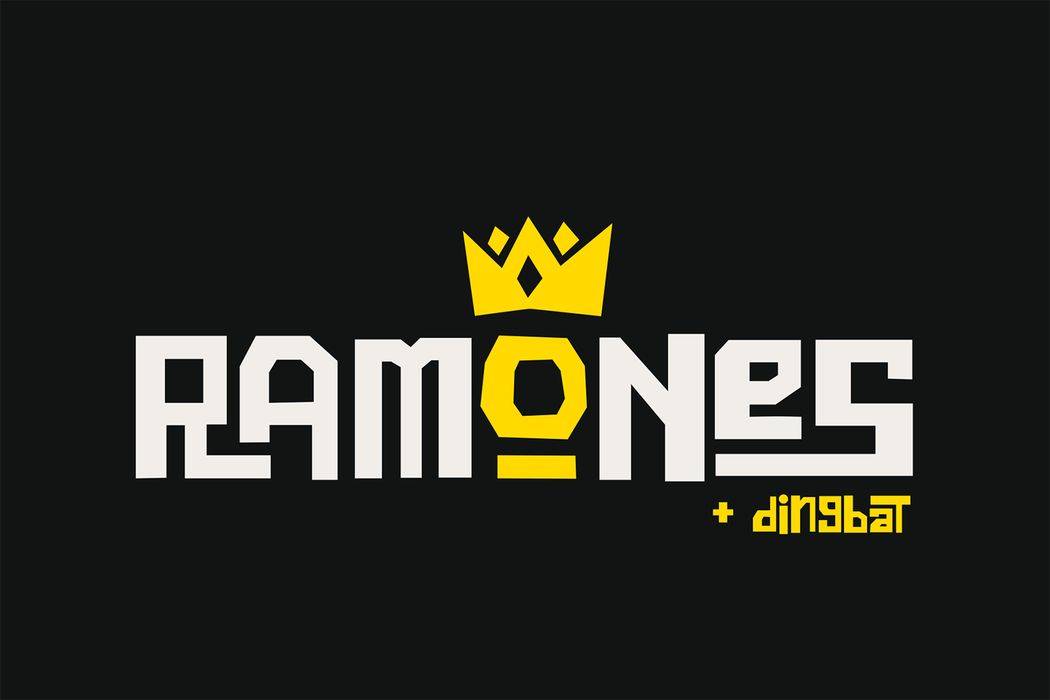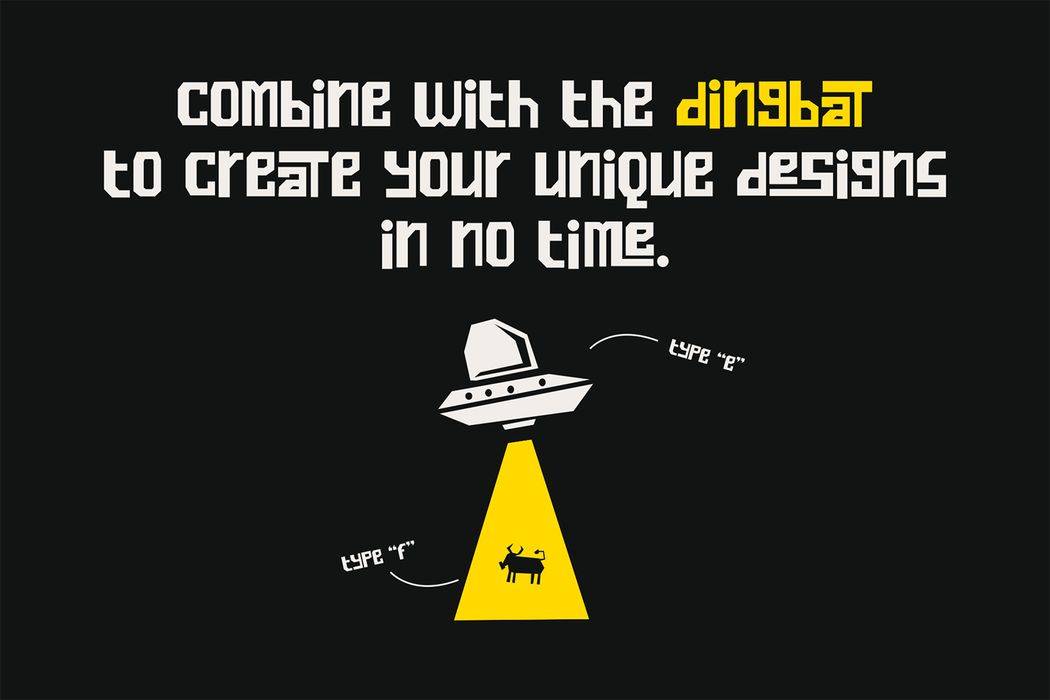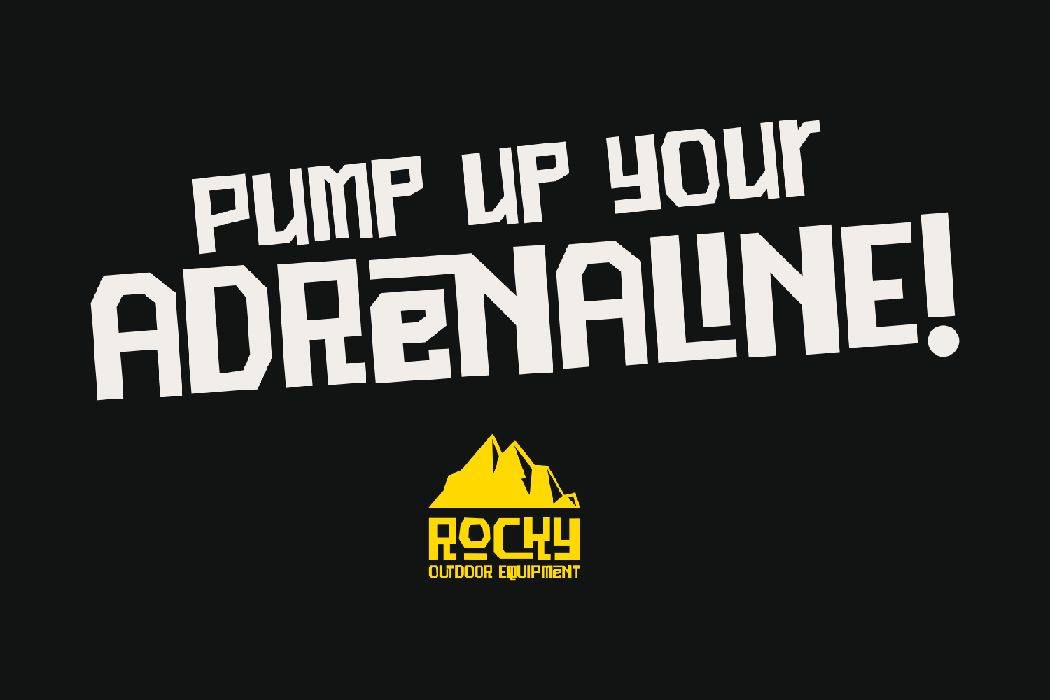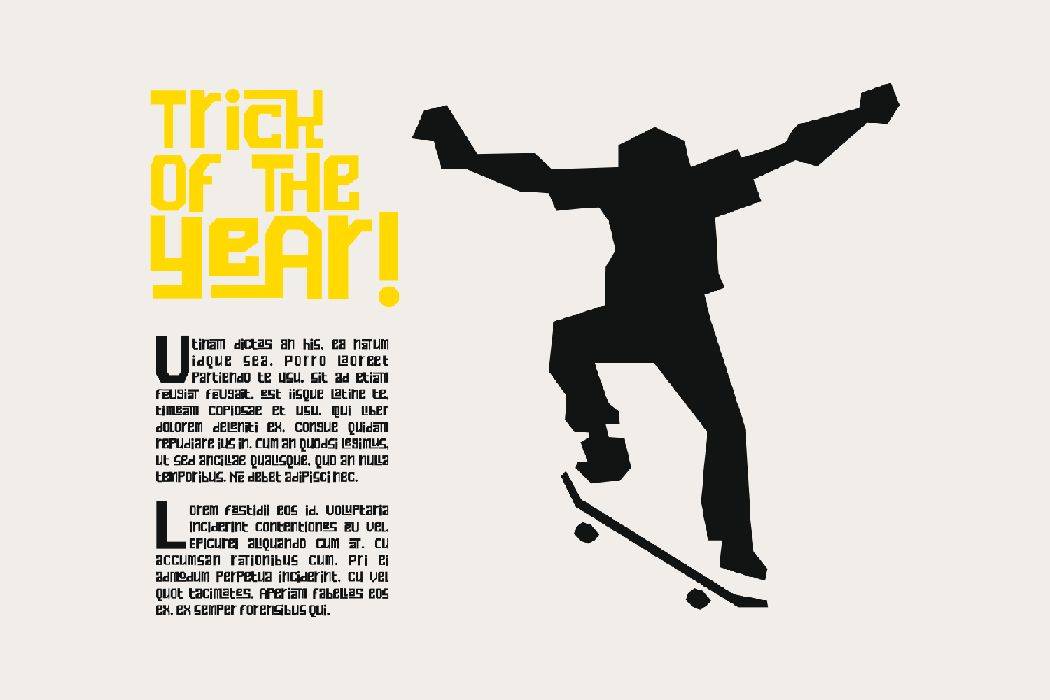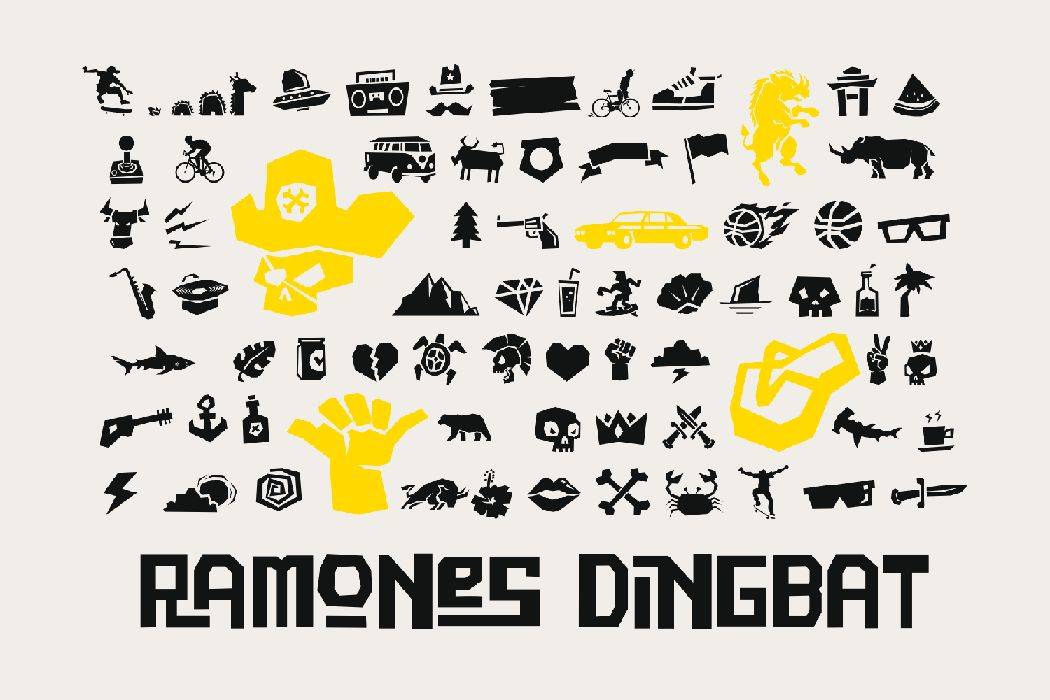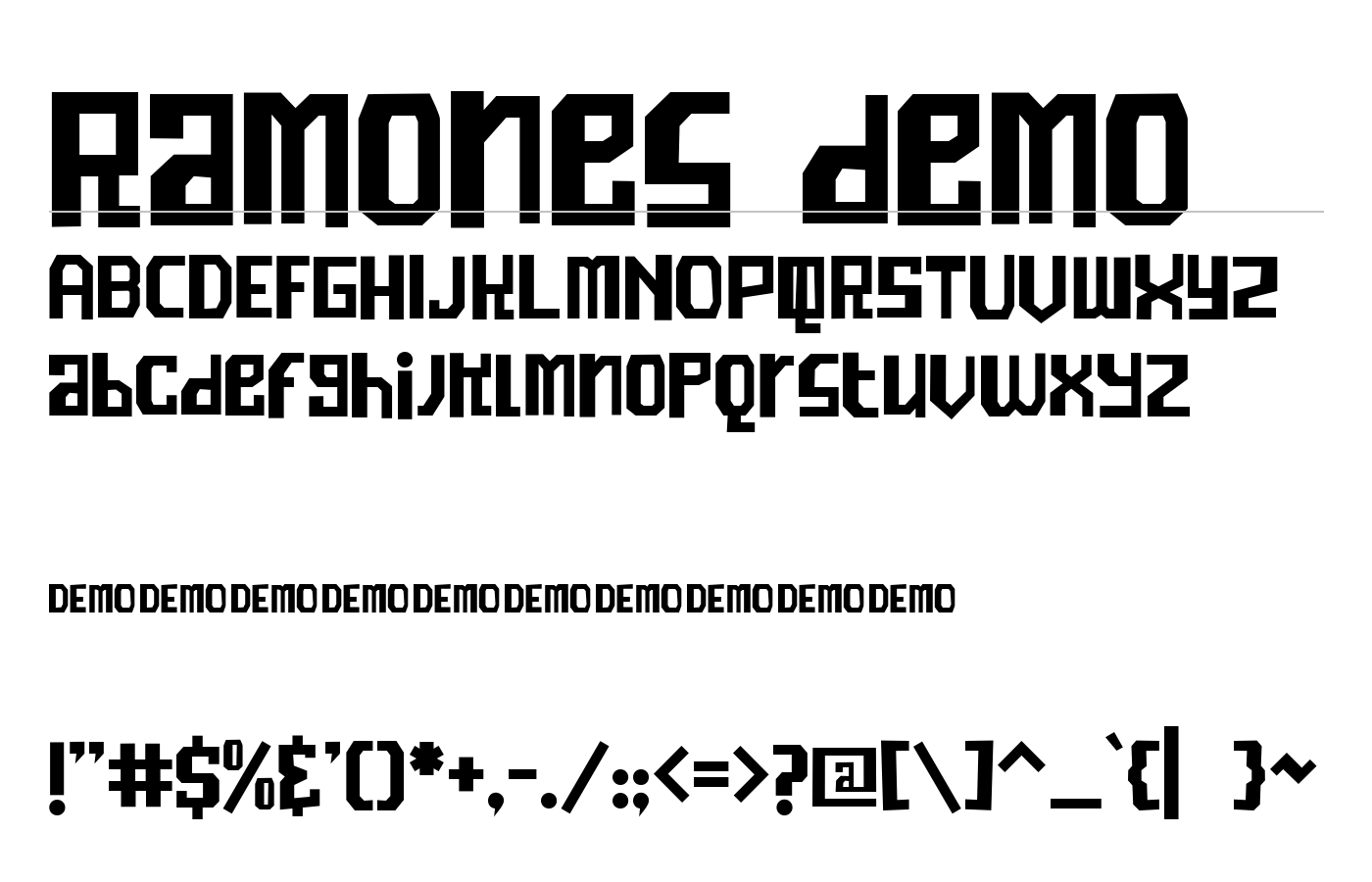
Ramones Font is a bold, condensed sans serif typeface with a distinct geometric and angular design that evokes a strong, edgy vibe. Its sharp, blocky letterforms and consistent stroke weight give it a sturdy, industrial feel, making it ideal for impactful headlines, branding, and designs that seek a modern yet rebellious personality. This font works great for music, sports, or urban-themed projects where a confident and bold statement is needed.
Ramones Font
About Ramones Font
| Font family | Ramones Font |
| Designer | nami_studio |